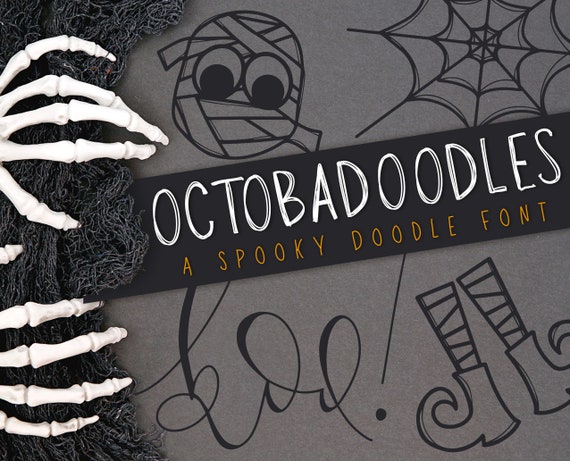
Introducing OctobaDoodles This fun, spooky DOODLE font is perfect for upcoming Halloween crafts of all kinds. It comes with 26 different spooky Halloween doodles.